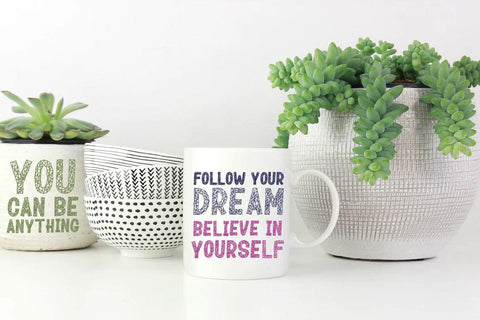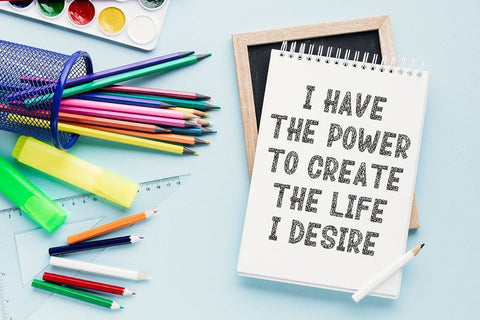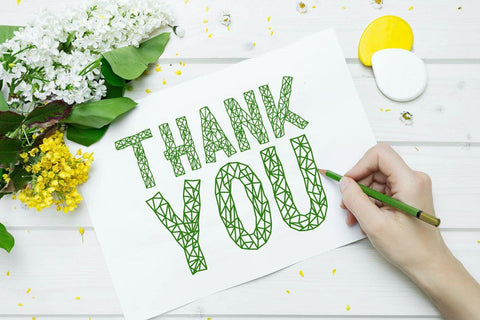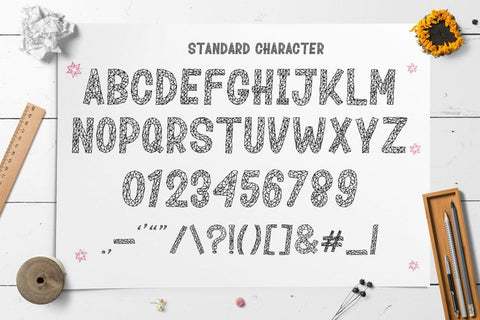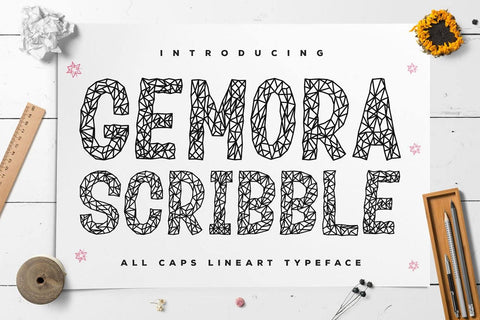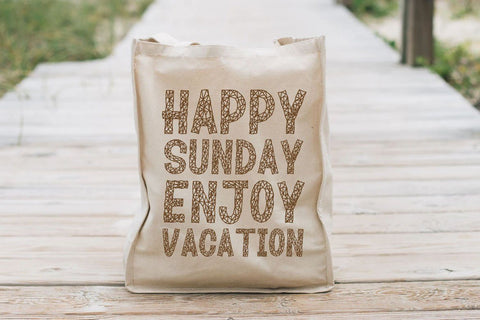
Gemora Scribble - Fun Display Font
Gemora Scribble is a cute and casual display font with an incredibly friendly feel. Whether you’re looking for fonts for Instagram or calligraphy scripts for DIY projects, this font will turn any creative idea into a true piece of art!
Gemora Scribble would be perfect for logos & branding, photography, watermark, social media posts, advertisements, invitation, product designs, label, stationery, product packaging, special events or anything that need handwriting taste.